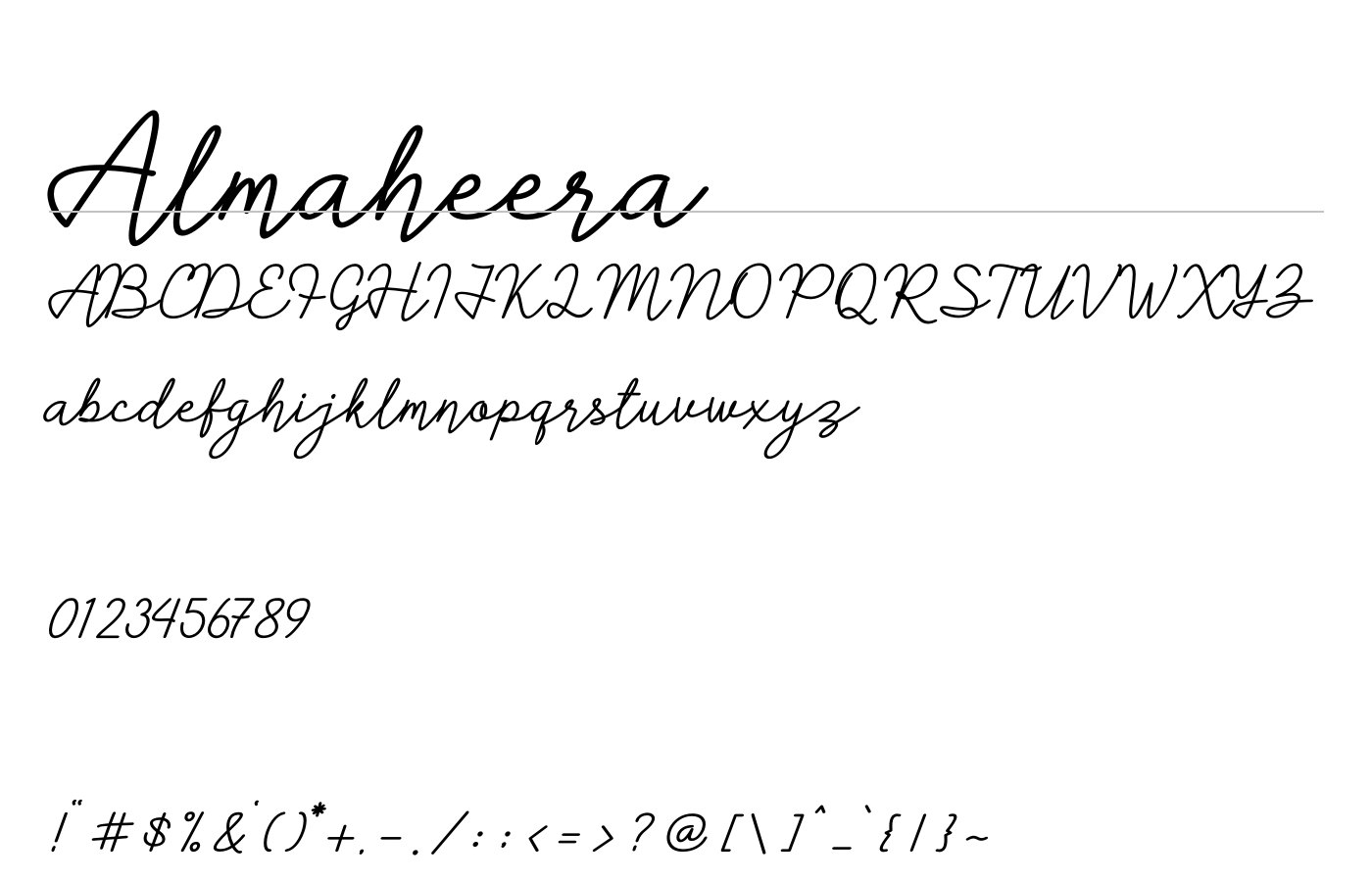
Almaheera is a delicate and elegant script font with smooth, flowing letterforms that mimic natural handwriting. Its slender strokes and graceful curves give it a refined and personal feel, making it ideal for invitations, branding, and creative projects that seek a touch of sophistication and warmth. This font works beautifully in settings where a stylish yet readable handwritten look is desired.
Almaheera Font
About Almaheera Font
| Font family | Almaheera Font |
| Designer | ahmad faizin |